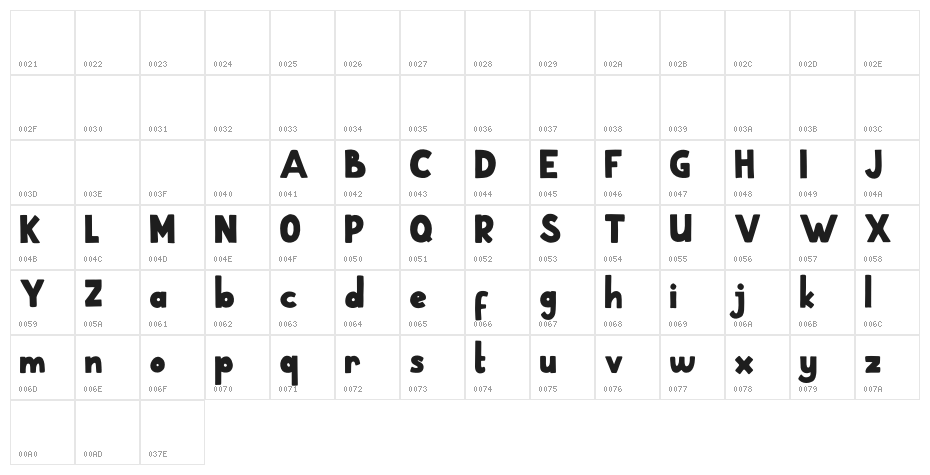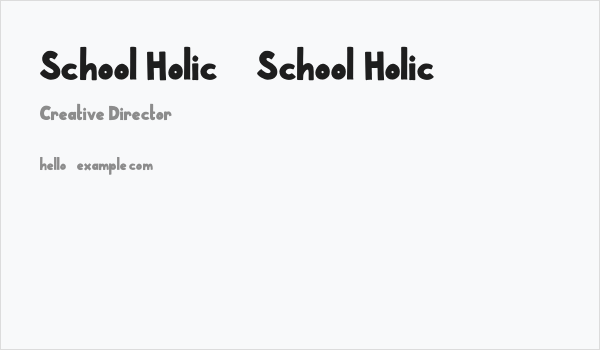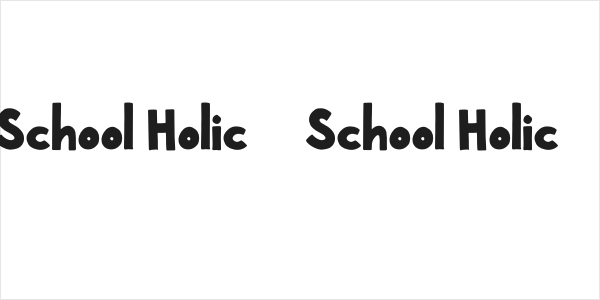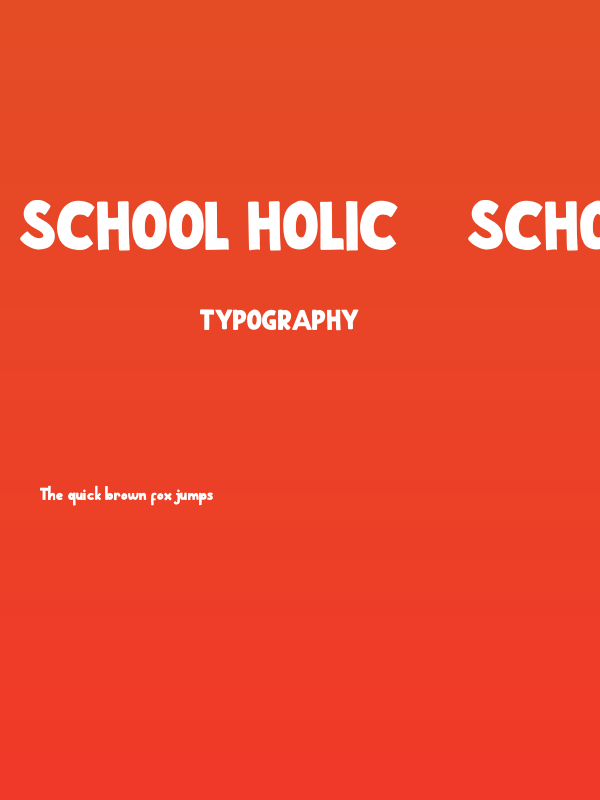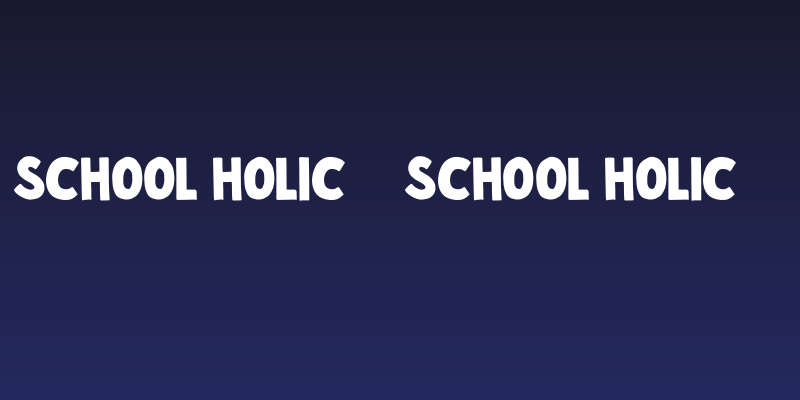
School Holic 3 Font
School Holic 3 Description
This playful and bold font features thick, rounded letters with a slightly irregular shape, giving it a hand-drawn, whimsical appearance. The uppercase letters are robust and commanding, while the lowercase letters maintain a consistent, friendly style. The font's unique character is further emphasized by its quirky, uneven strokes, which add a sense of movement and energy. The numbers and special characters are equally bold and maintain the same playful aesthetic, making this font ideal for projects that require a fun and engaging visual element.
| Proposed Projects | Ideal for children's books, playful branding, posters, and educational materials. |